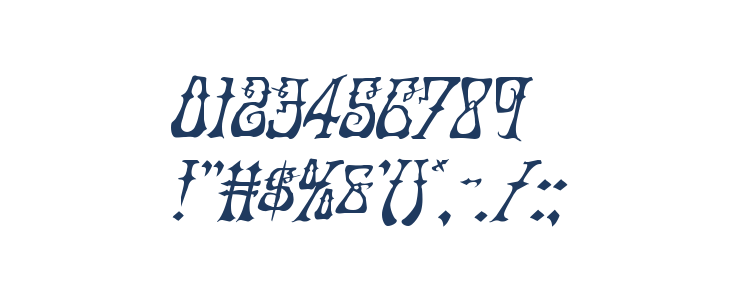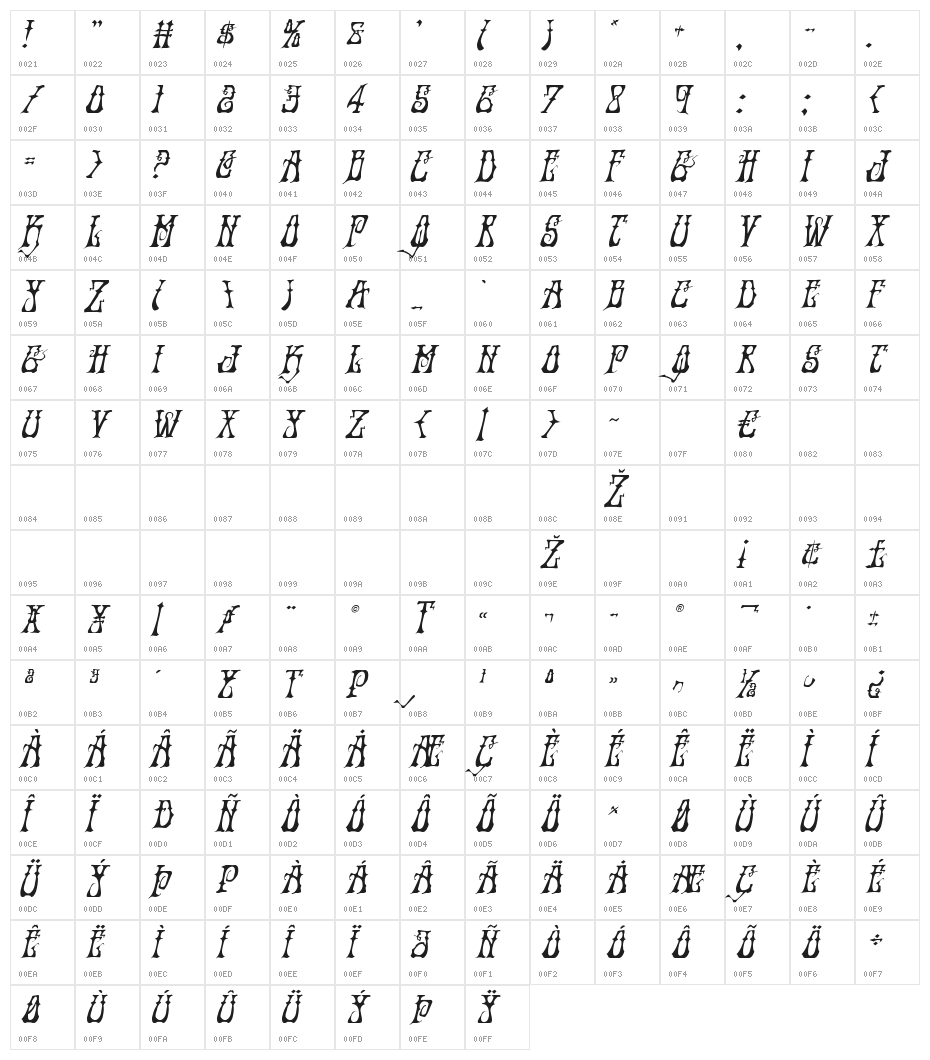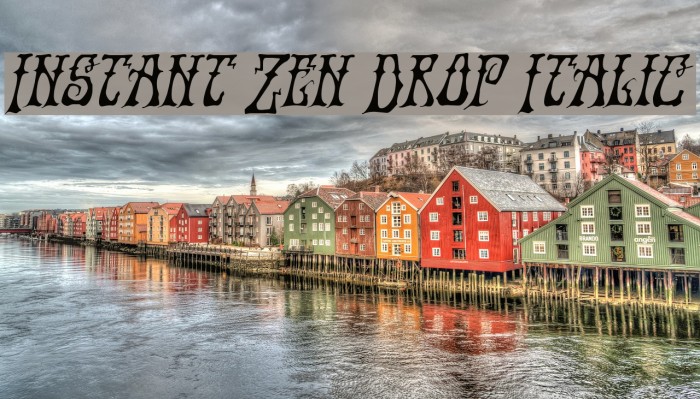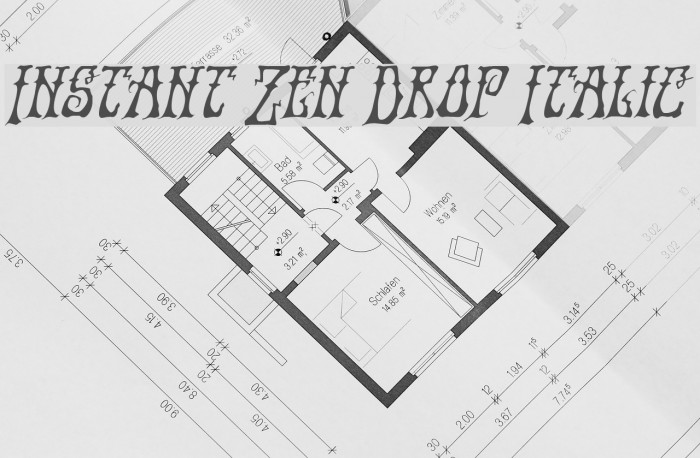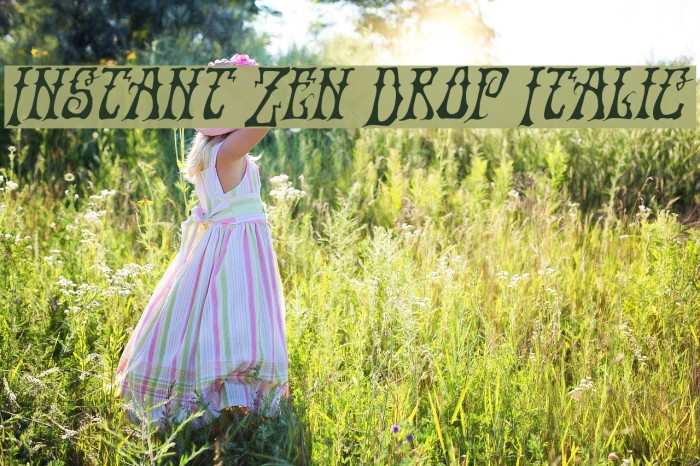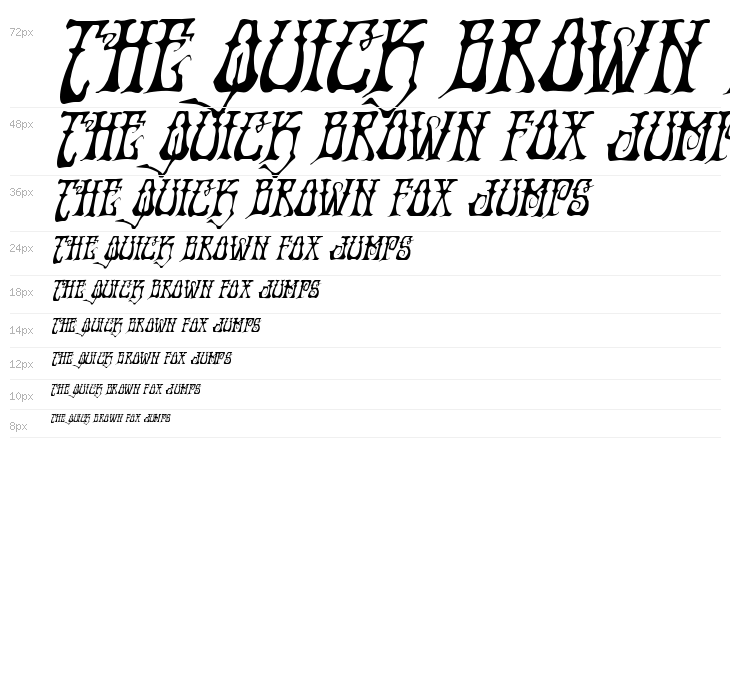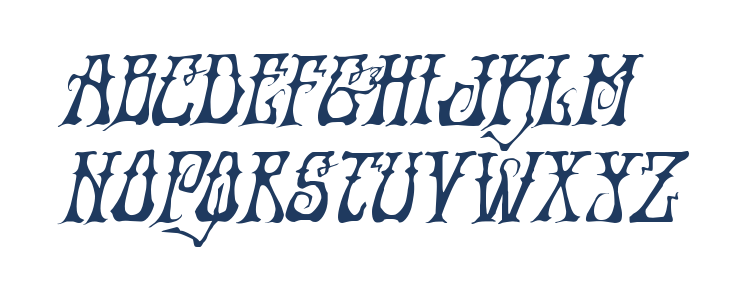
Instant Zen Drop Italic Font
Instant Zen Drop Italic Description
This font features a highly decorative and artistic style, characterized by its intricate and flowing letterforms. The uppercase and lowercase letters exhibit a unique blend of sharp angles and smooth curves, creating a dynamic and visually striking appearance. The numbers and special characters maintain this elaborate design, ensuring consistency across all glyphs. The font's overall aesthetic is reminiscent of calligraphic or tattoo-inspired styles, with a modern twist that adds a sense of edginess and flair.
| Proposed Projects | Ideal for tattoo designs, album covers, posters, and any project requiring a bold, artistic statement. |